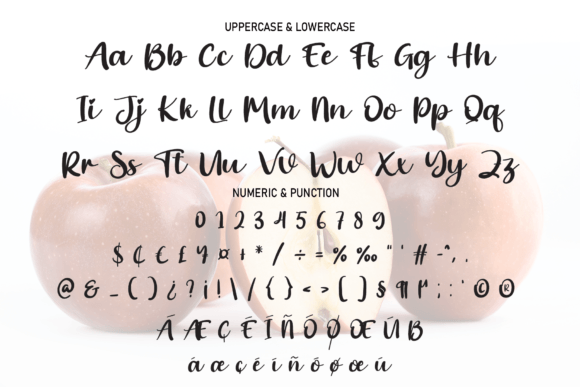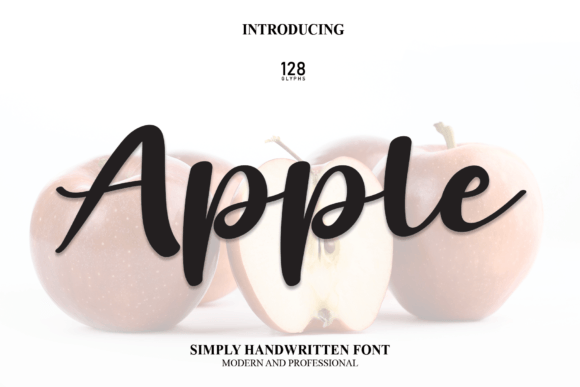
Introducing Apple Font: Elevate Your Designs with Timeless Elegance
Are you a designer or crafter looking for a font that exudes sophistication and style? Look no further than Apple Font, a stunning handwritten font that brings a touch of classic calligraphy to your projects. Inspired by the beauty of timeless classic calligraphy, Apple Font is a balanced and varied typeface designed to enhance the beauty of your designs.
The Inspiration Behind Apple Font
Apple Font draws inspiration from the world of classic calligraphy, where the art of beautiful handwriting meets modern design. With its roots in traditional calligraphy, Apple Font has been crafted to bring a sense of elegance and refinement to your projects. The font’s creator aimed to capture the essence of classic calligraphy, while infusing it with a contemporary atmosphere that appeals to modern designers and crafters.
Key Features of Apple Font
So, what makes Apple Font so special? Here are some of its key features:
- Handwritten style: Apple Font boasts a beautiful, handwritten style that adds a personal touch to your designs.
- Contemporary atmosphere: Despite its classic inspiration, Apple Font has a modern feel that makes it perfect for a wide range of design projects.
- Impeccable form: The font’s precise and elegant letterforms ensure that your text looks polished and refined.
- Balanced and varied: Apple Font features a range of characters and ligatures, allowing you to create unique and visually appealing text.
Uses for Apple Font
Apple Font is an incredibly versatile typeface that can be used in a variety of design projects, including:
- Branding and logos: Add a touch of elegance to your brand identity with Apple Font.
- Wedding and event designs: Create beautiful wedding invitations, programs, and other event materials with Apple Font.
- Packaging and product design: Elevate your product packaging with Apple Font’s sophisticated style.
- Digital and print media: Use Apple Font in your digital and print designs, such as brochures, magazines, and social media graphics.
Why Choose Apple Font?
With so many fonts available, why choose Apple Font? Here are just a few reasons:
- Unique and distinctive: Apple Font’s classic calligraphy inspiration sets it apart from more generic fonts.
- Elegant and sophisticated: Add a touch of luxury to your designs with Apple Font’s refined style.
- Easy to read: Despite its elegant style, Apple Font is highly legible, making it perfect for body text and headings.
Tips for Using Apple Font
To get the most out of Apple Font, here are a few tips:
- Use it sparingly: Apple Font’s elegance is best showcased when used sparingly, such as in headings or titles.
- Pair it with contrasting fonts: Combine Apple Font with a contrasting font to create visual interest and hierarchy.
- Experiment with colors and textures: Add depth and dimension to your designs by experimenting with different colors and textures.
Apple Font is a stunning handwritten font that brings a touch of timeless classic calligraphy to your designs. With its elegant style, impeccable form, and versatile uses, Apple Font is the perfect choice for designers and crafters looking to elevate their projects. Whether you’re creating branding materials, wedding designs, or packaging, Apple Font is sure to impress.